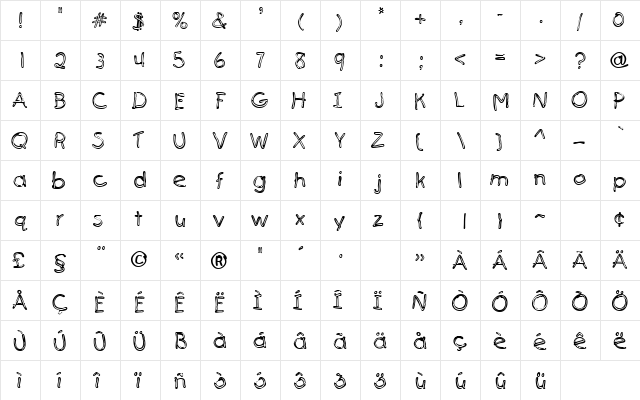
Senfstreifen Scharf
Design Context for Senfstreifen Typeface
Senfstreifen is a composed and adaptable typeface that performs quietly and consistently across a wide range of design contexts.